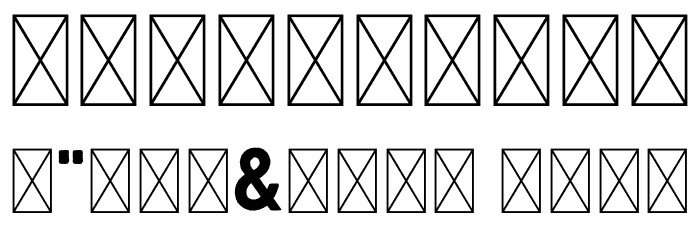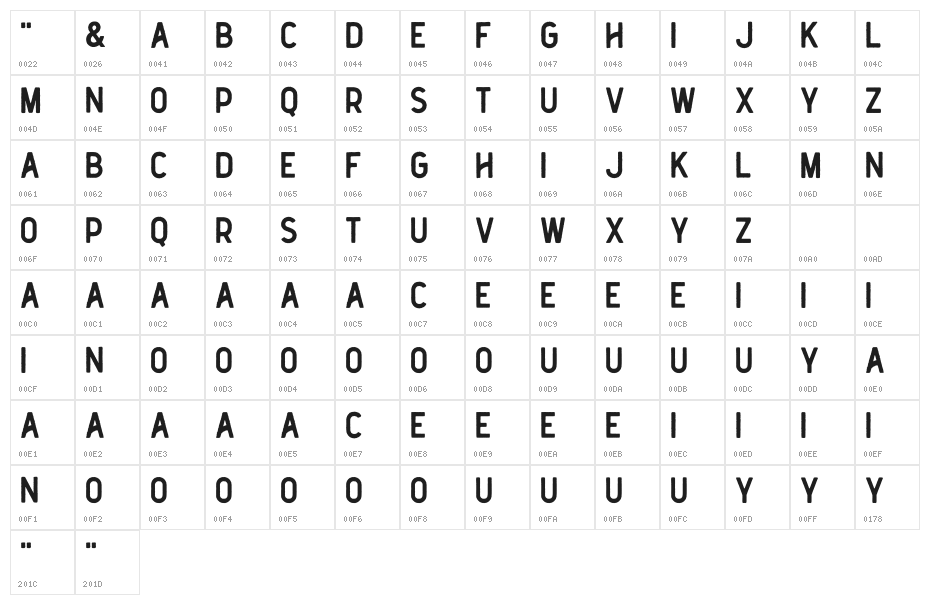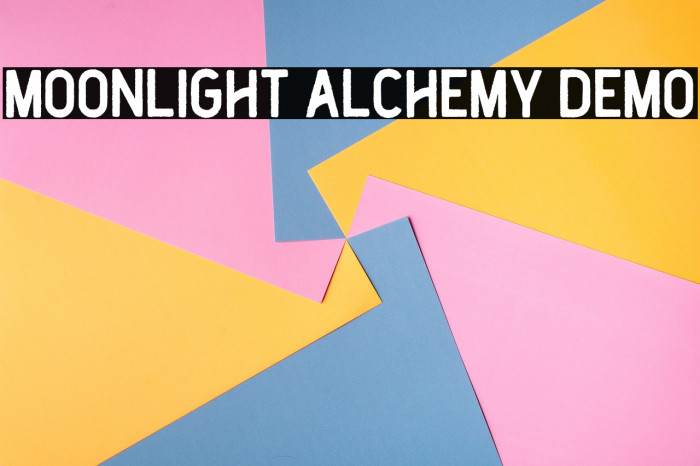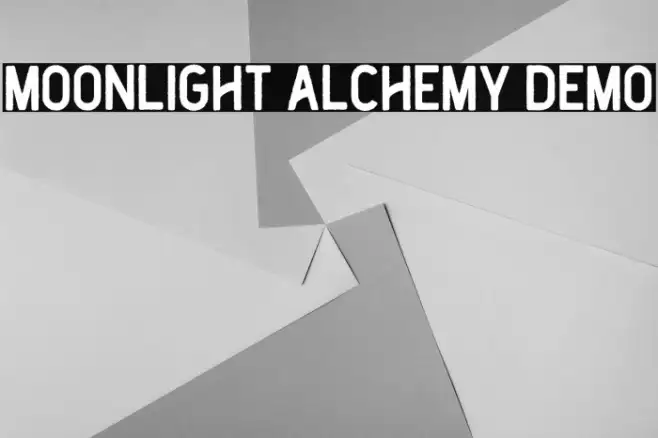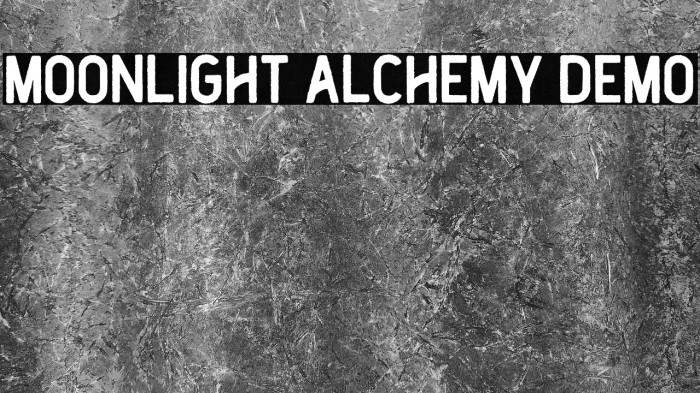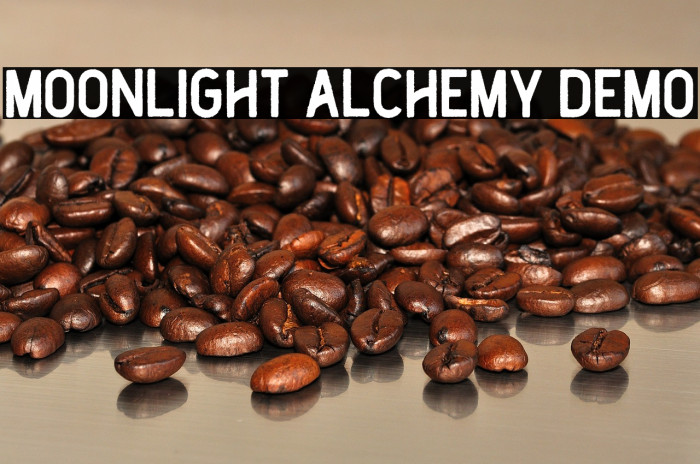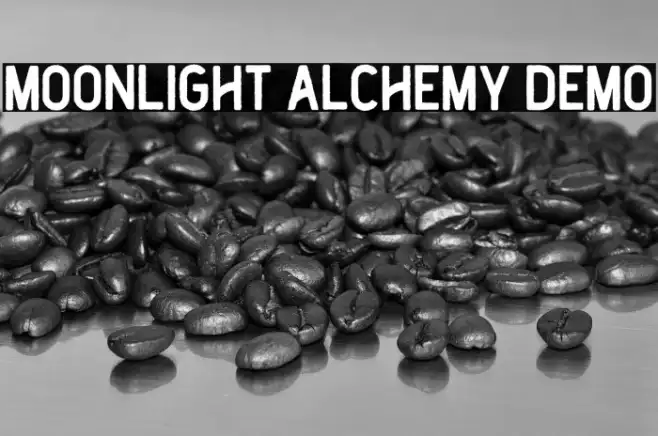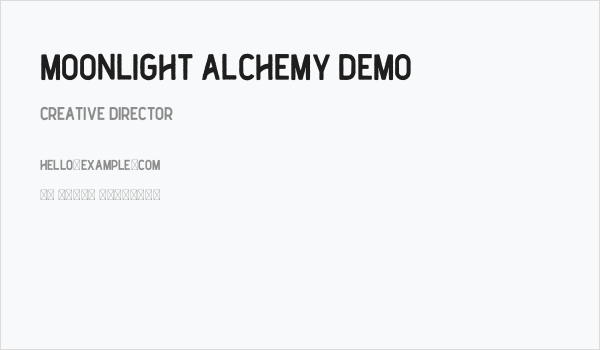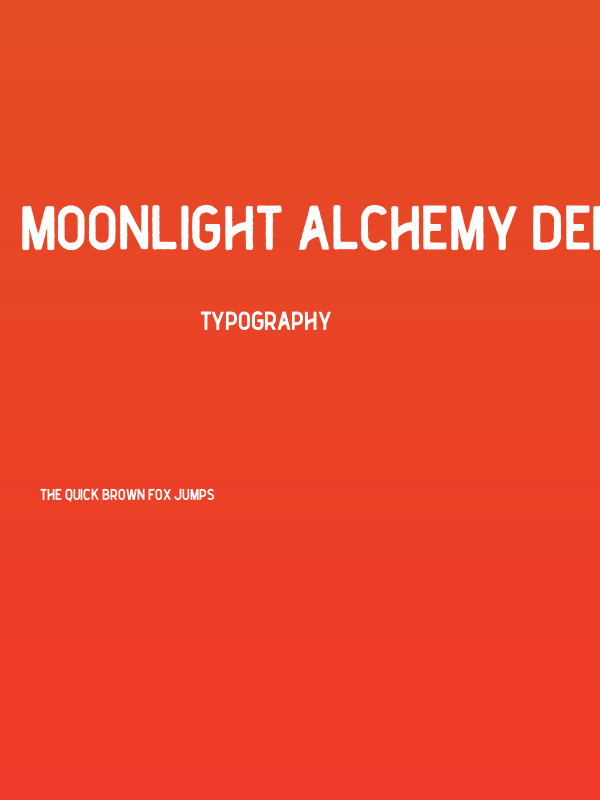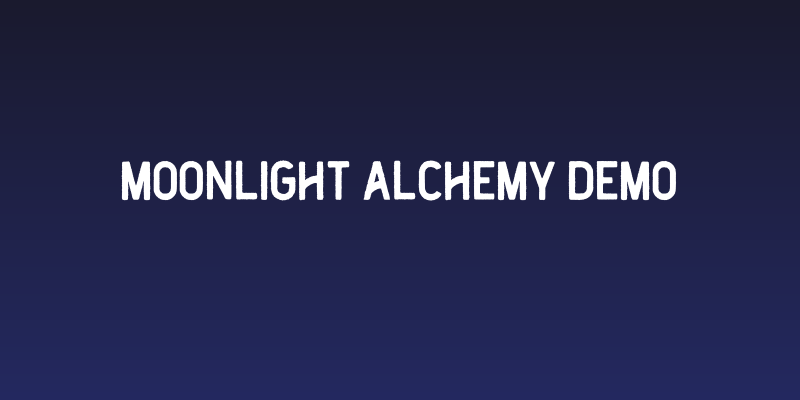
Moonlight Alchemy DEMO Font
Moonlight Alchemy DEMO Description
This font features a bold and robust design with a slightly distressed texture, giving it a handcrafted and rustic appearance. The uppercase letters are strong and prominent, while the lowercase letters maintain a consistent style that complements the uppercase set. The numerals are clear and legible, matching the overall aesthetic. The special characters are designed to blend seamlessly with the rest of the font, maintaining its unique style. This font is ideal for projects that require a touch of vintage charm and a bold statement.
| Proposed Projects | Ideal for branding, posters, packaging, and any design requiring a vintage or handcrafted feel. |